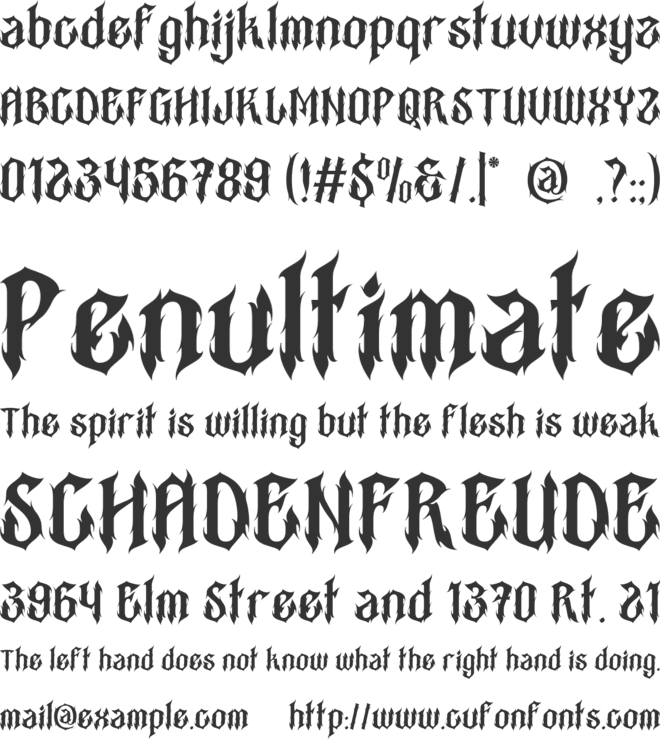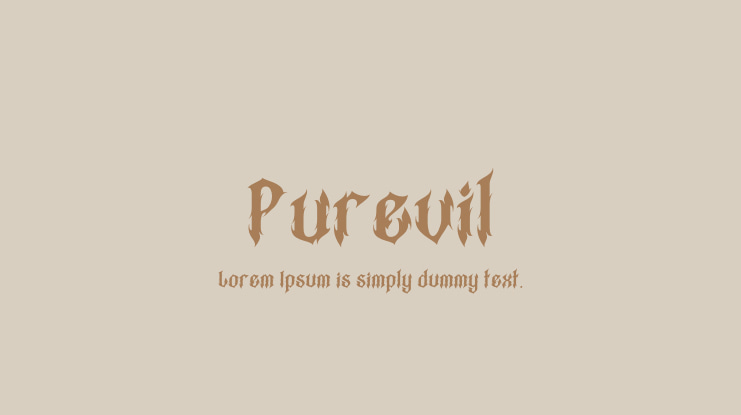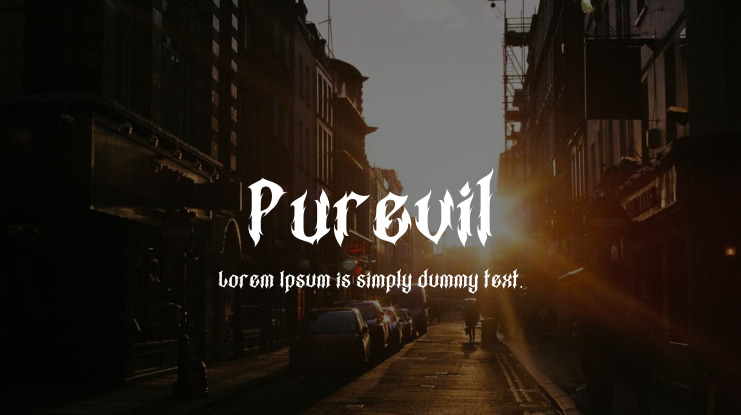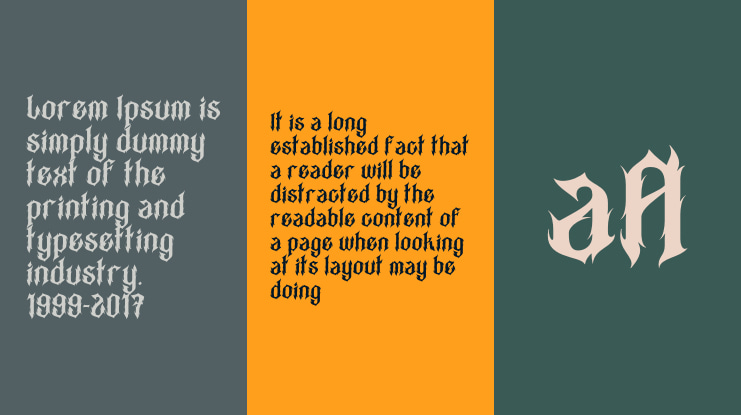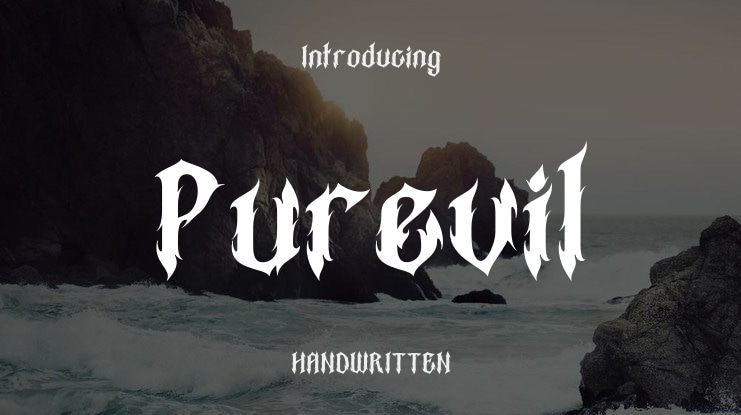
Purevil Font
Purevil is a tribal metal font featuring bold letters that maintain a modern look with a unique shape for each letter. Additionally, this font includes ornamental features, making it an ideal option for individuals designing metal-themed projects such as album covers, metal band logos, music concert posters, game interfaces, and more. This tribal metal font can enhance the impact of your design.